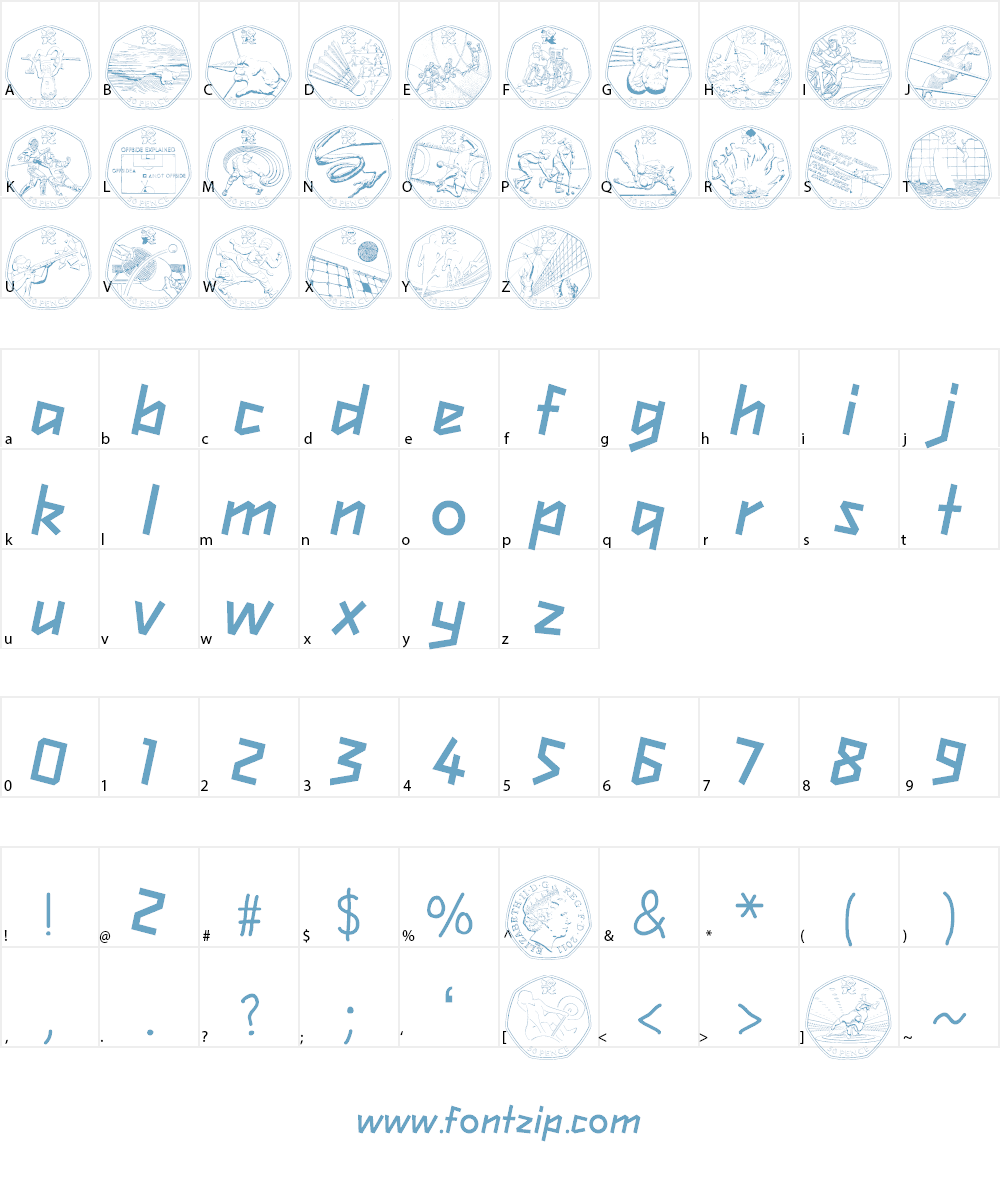
Every four years (except 1916,1940 & 1944 due to the War). The first modern Olympiad began in 1896, the second began in 1900, and so on. London 2012 is the 30th (XXX)